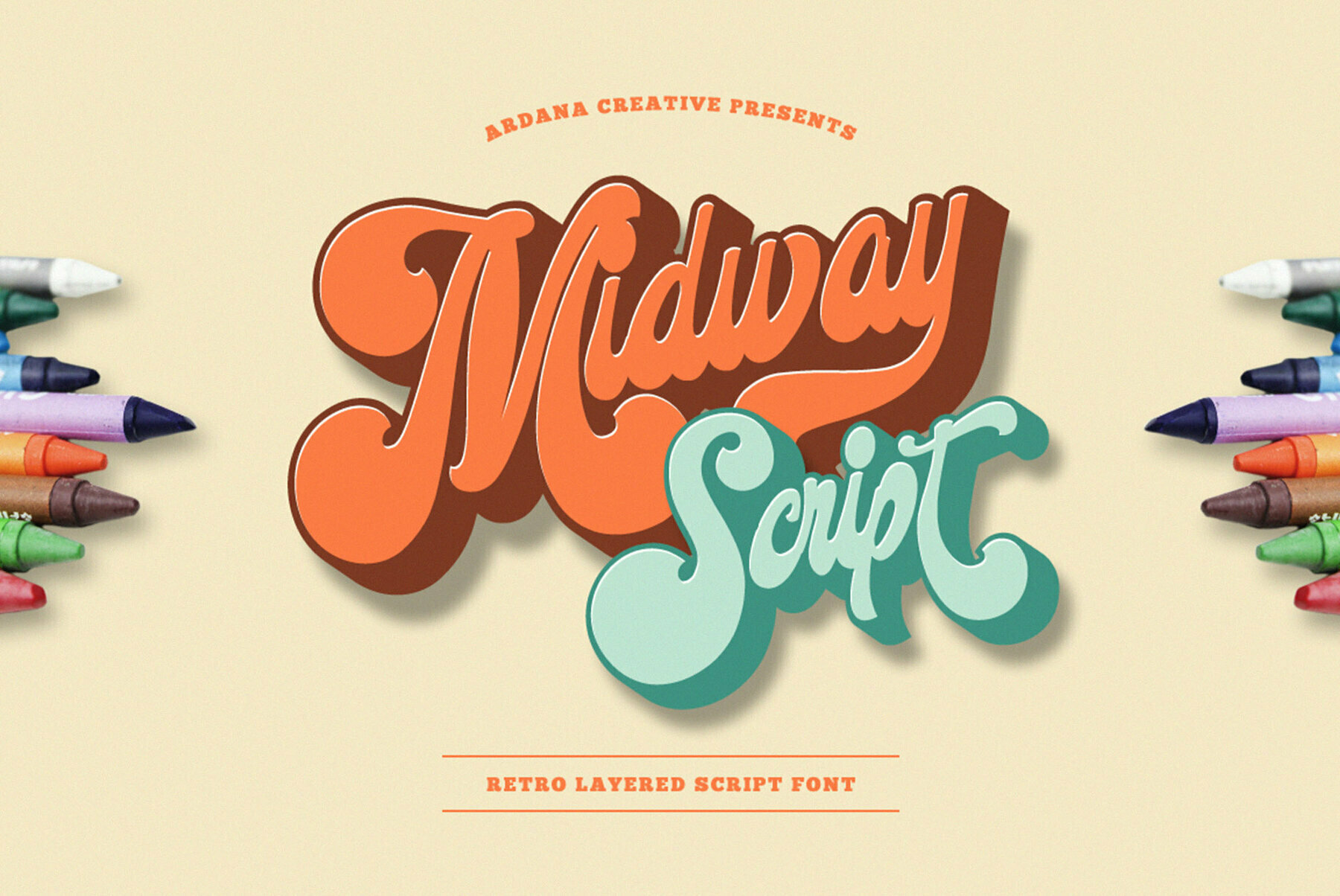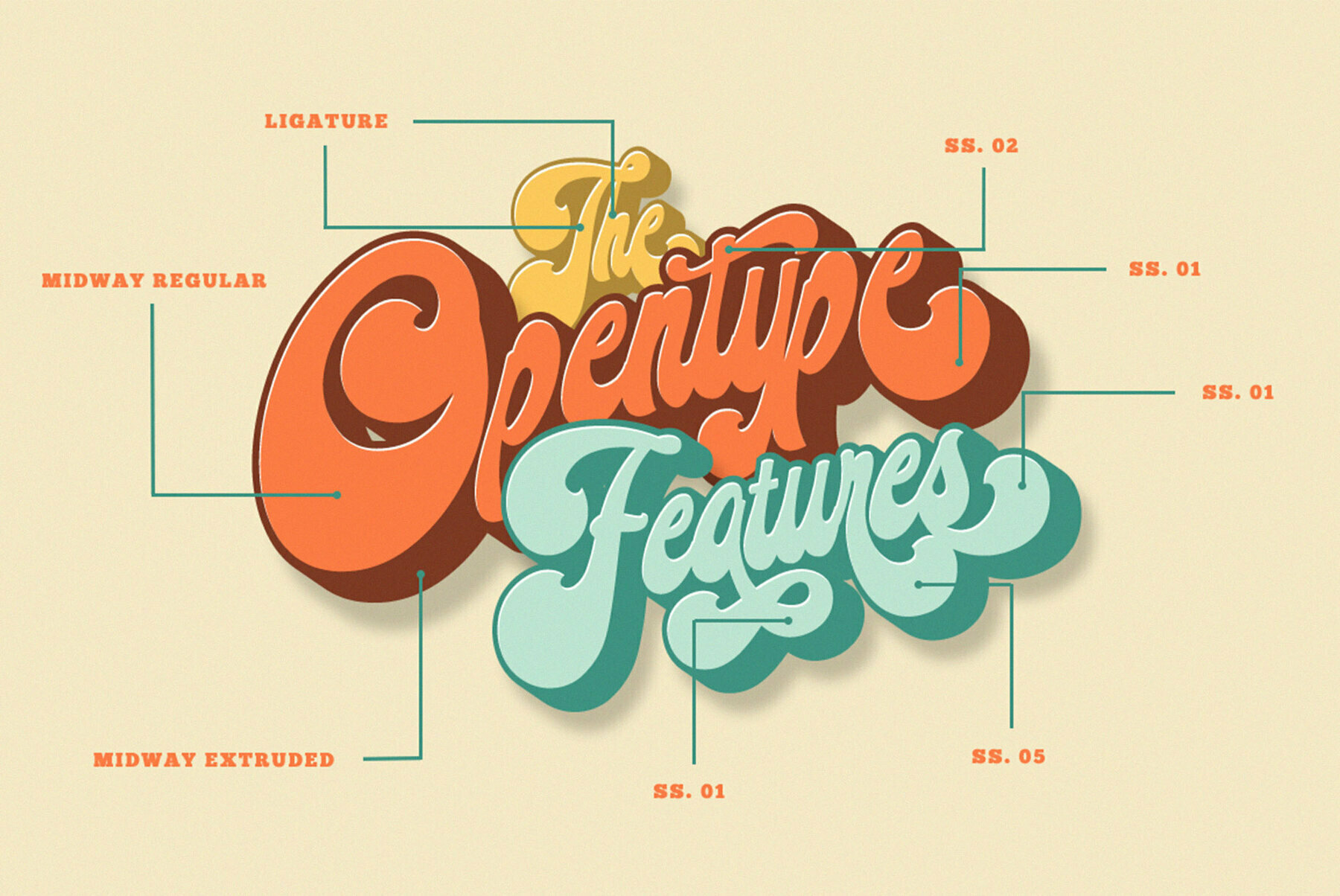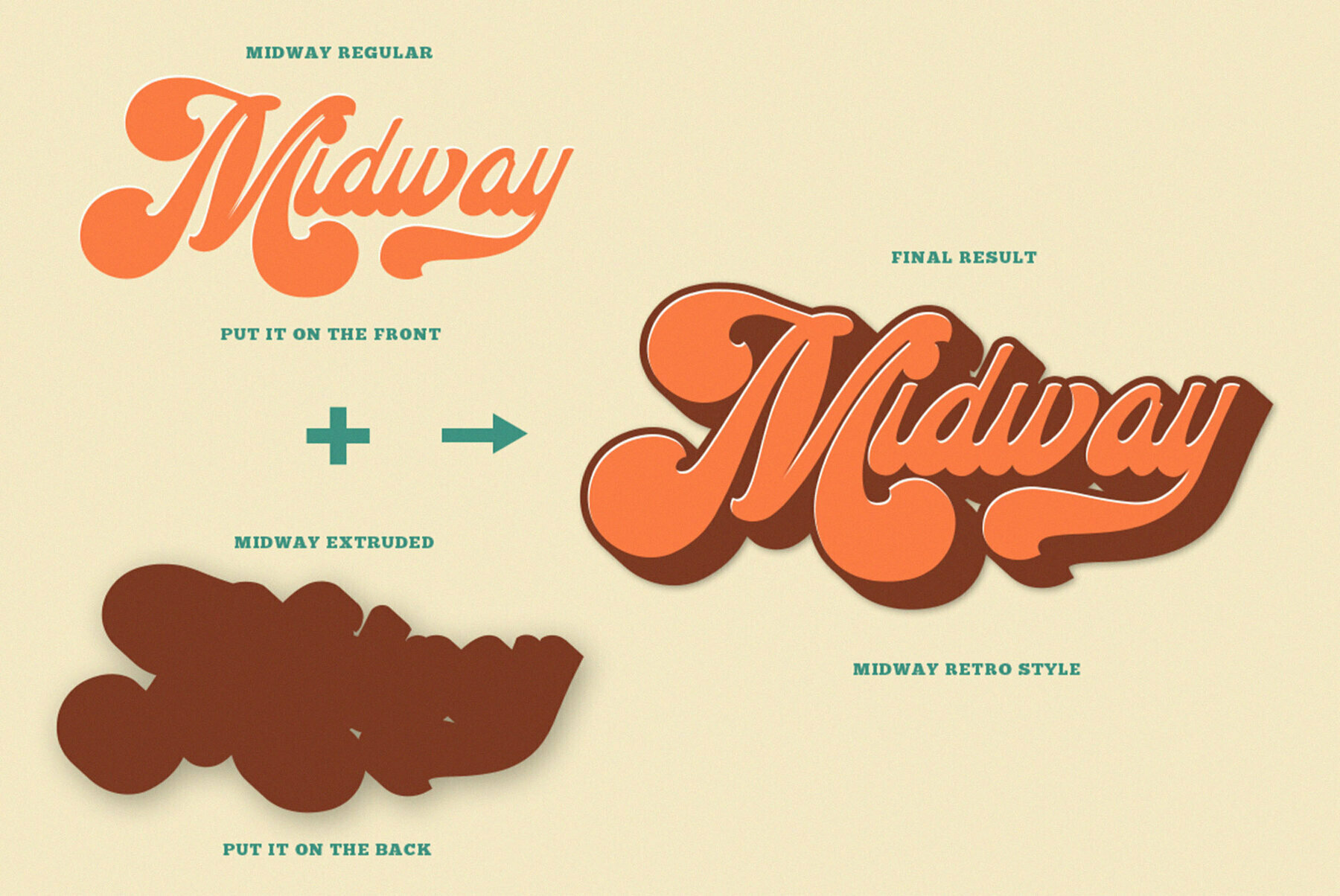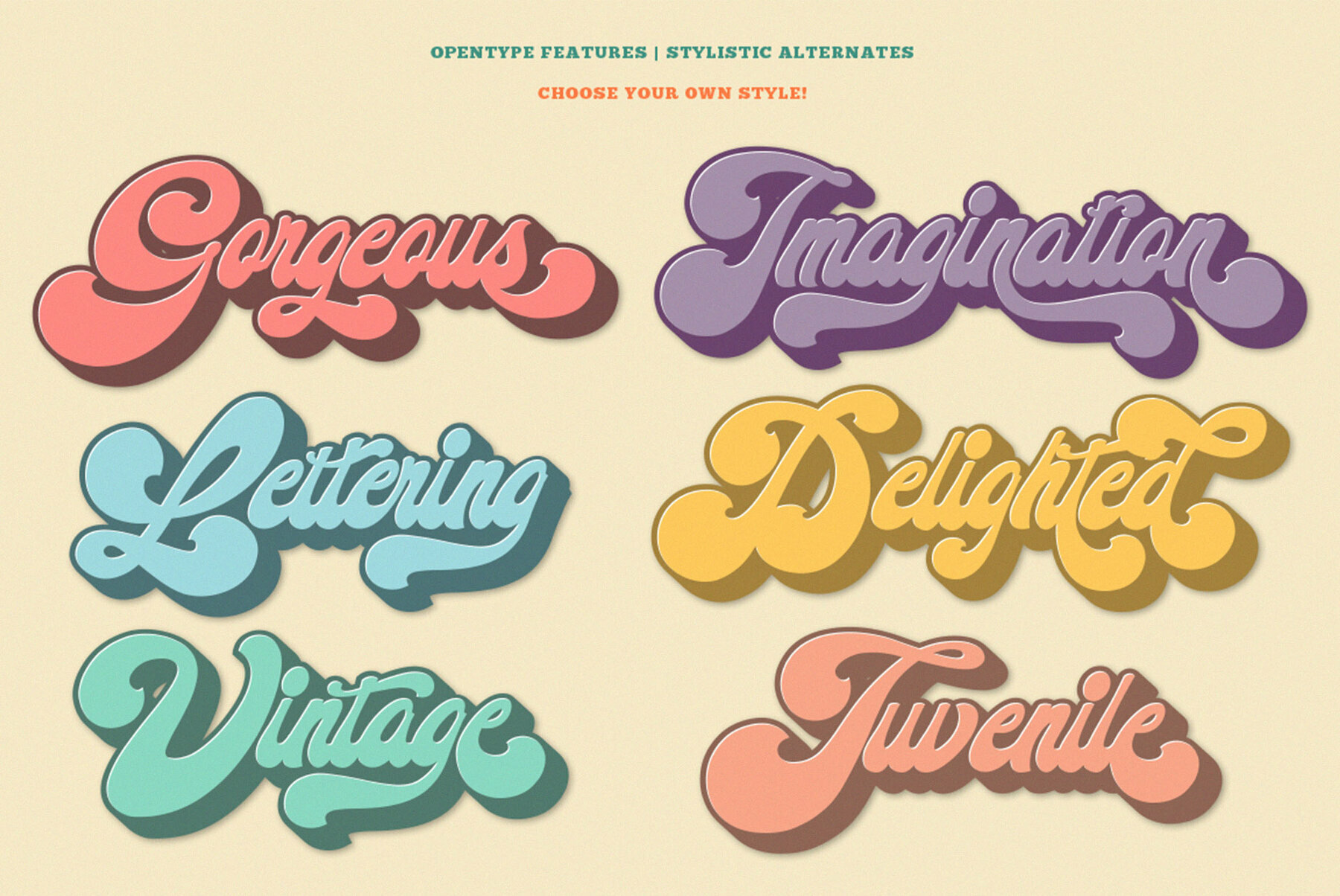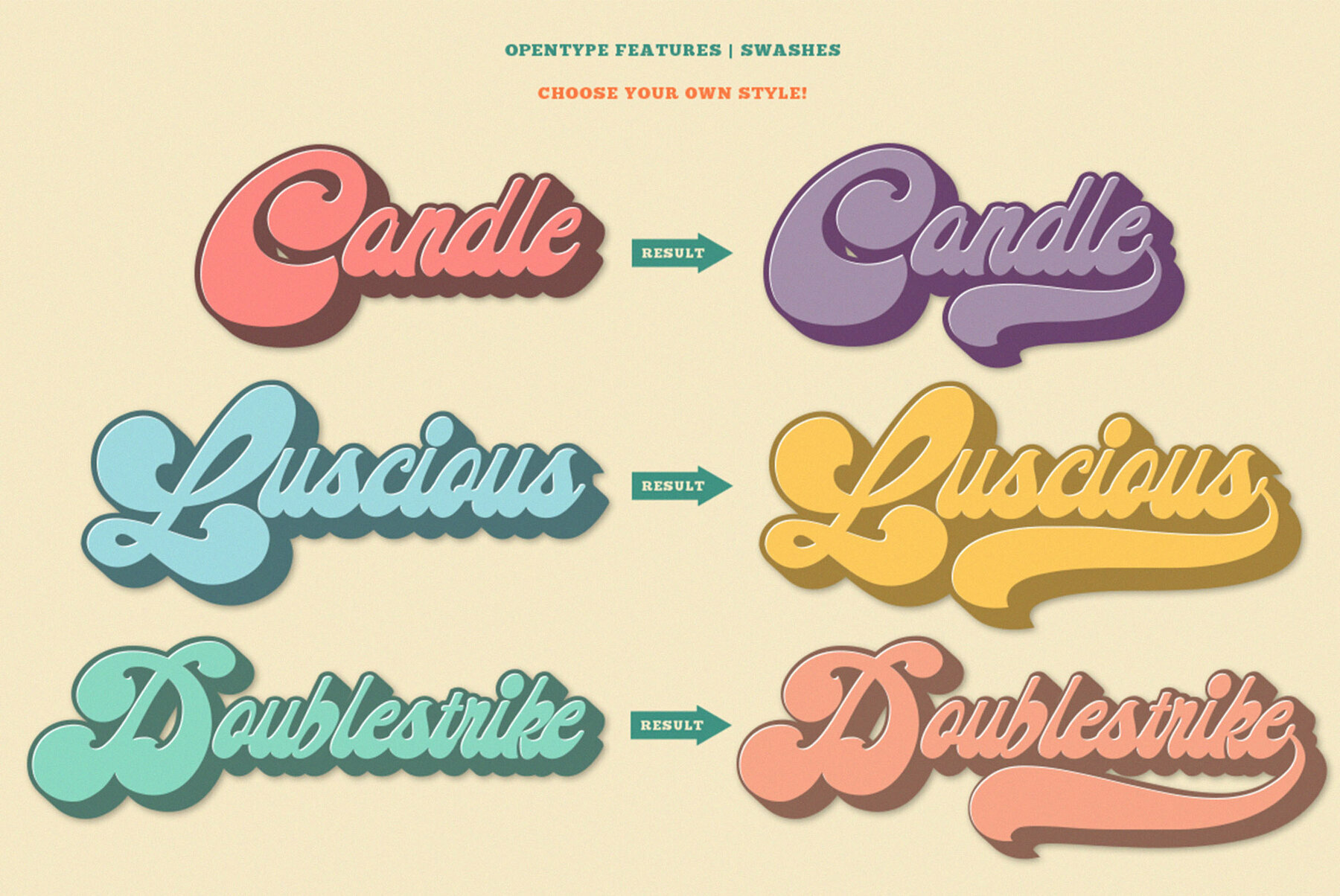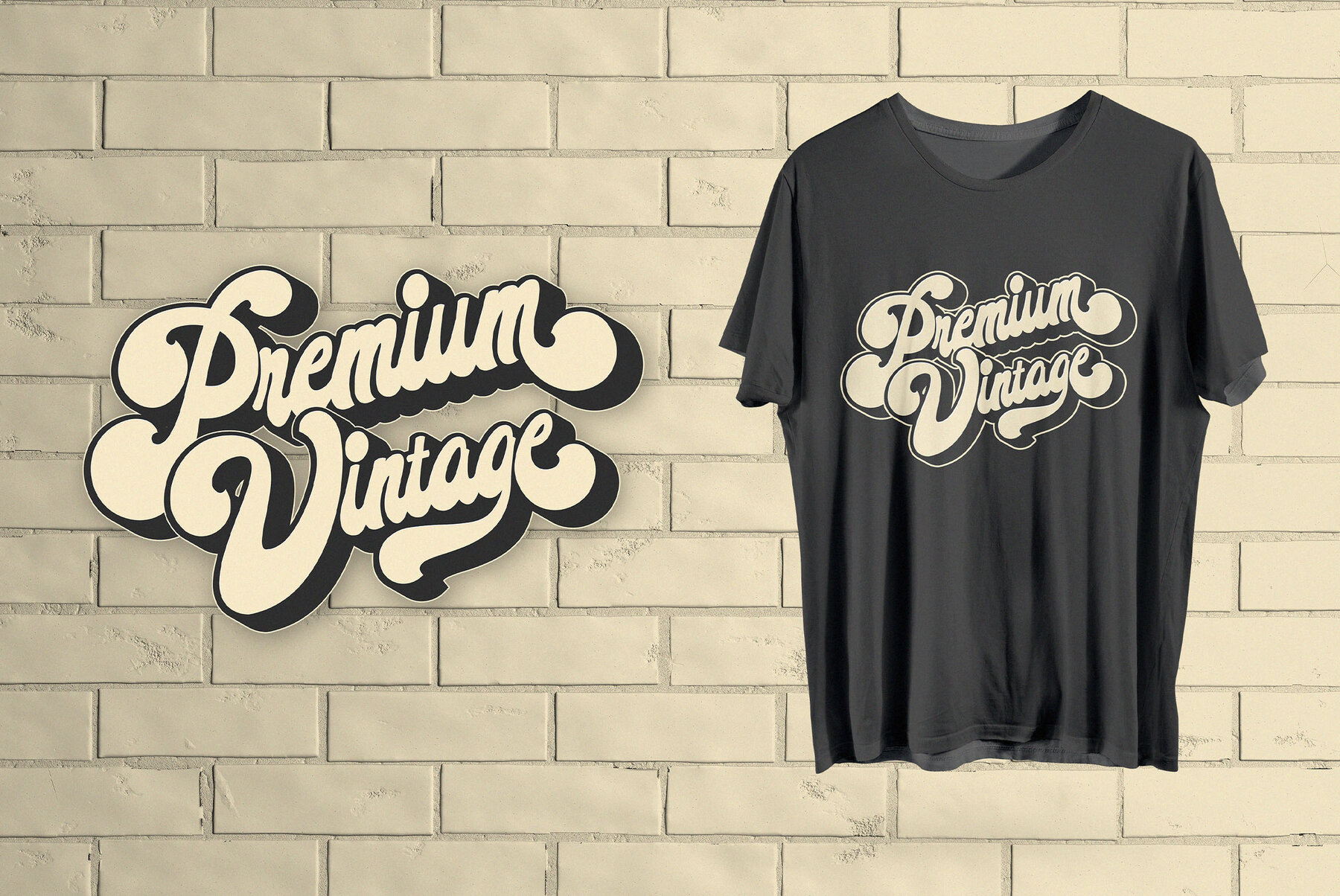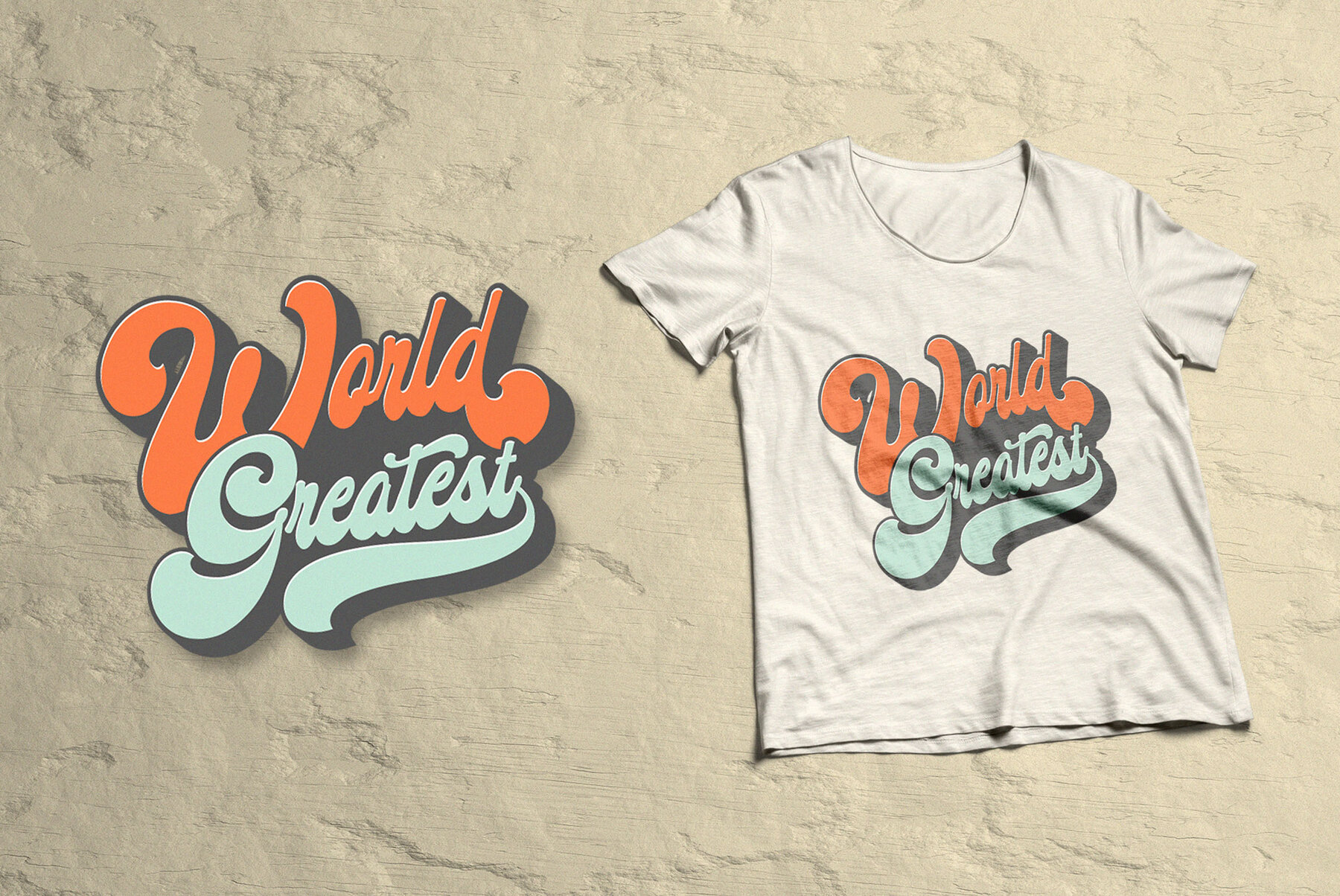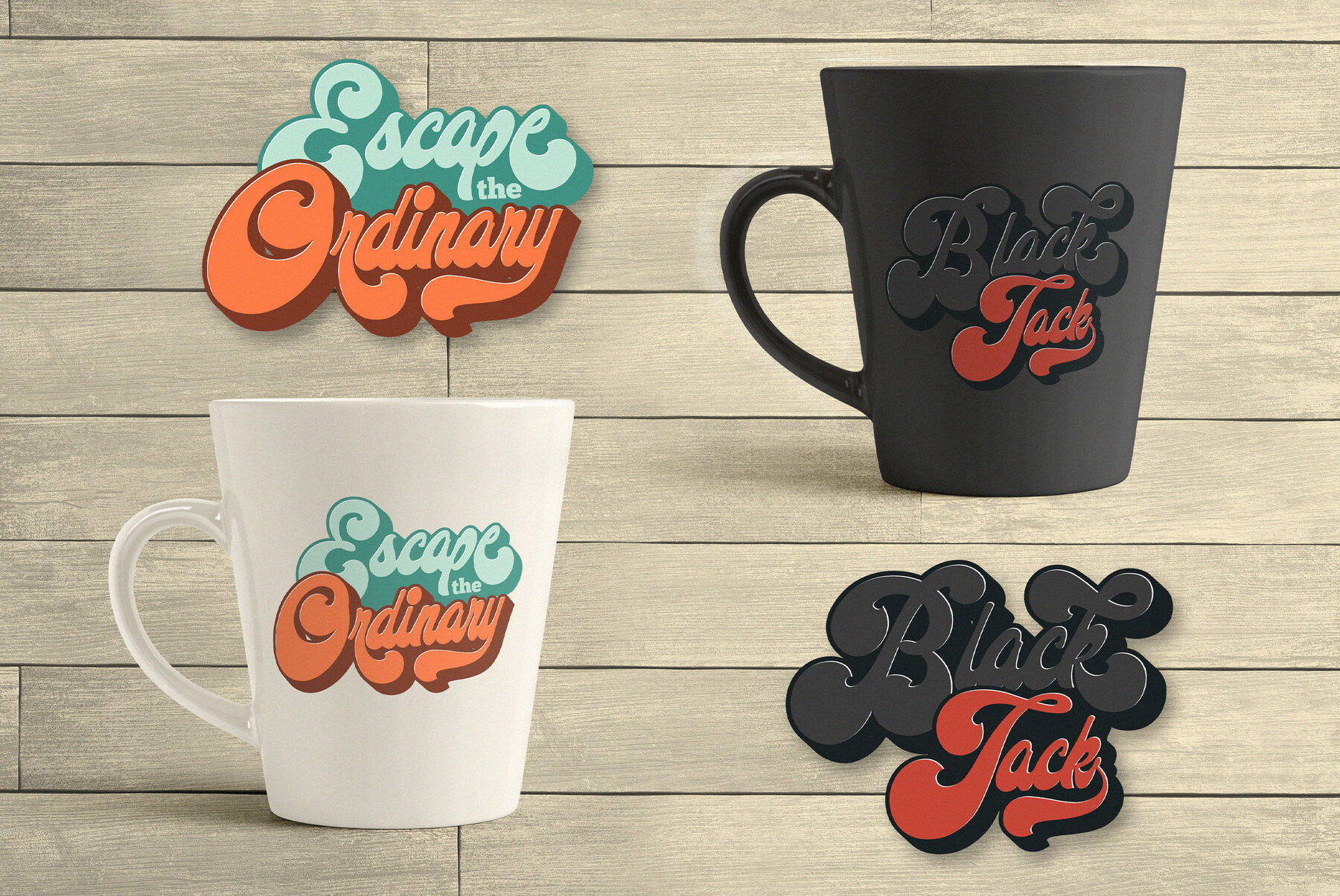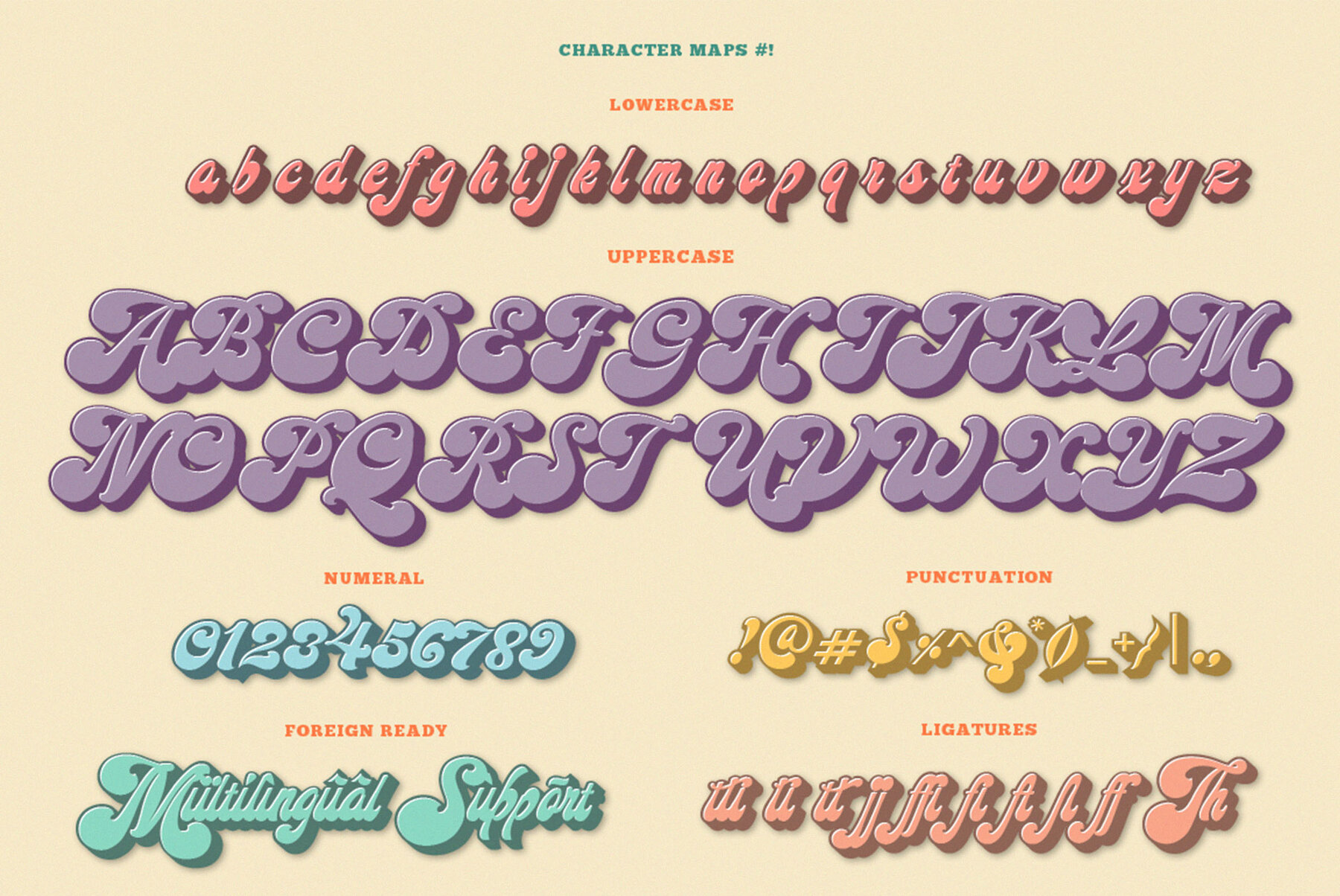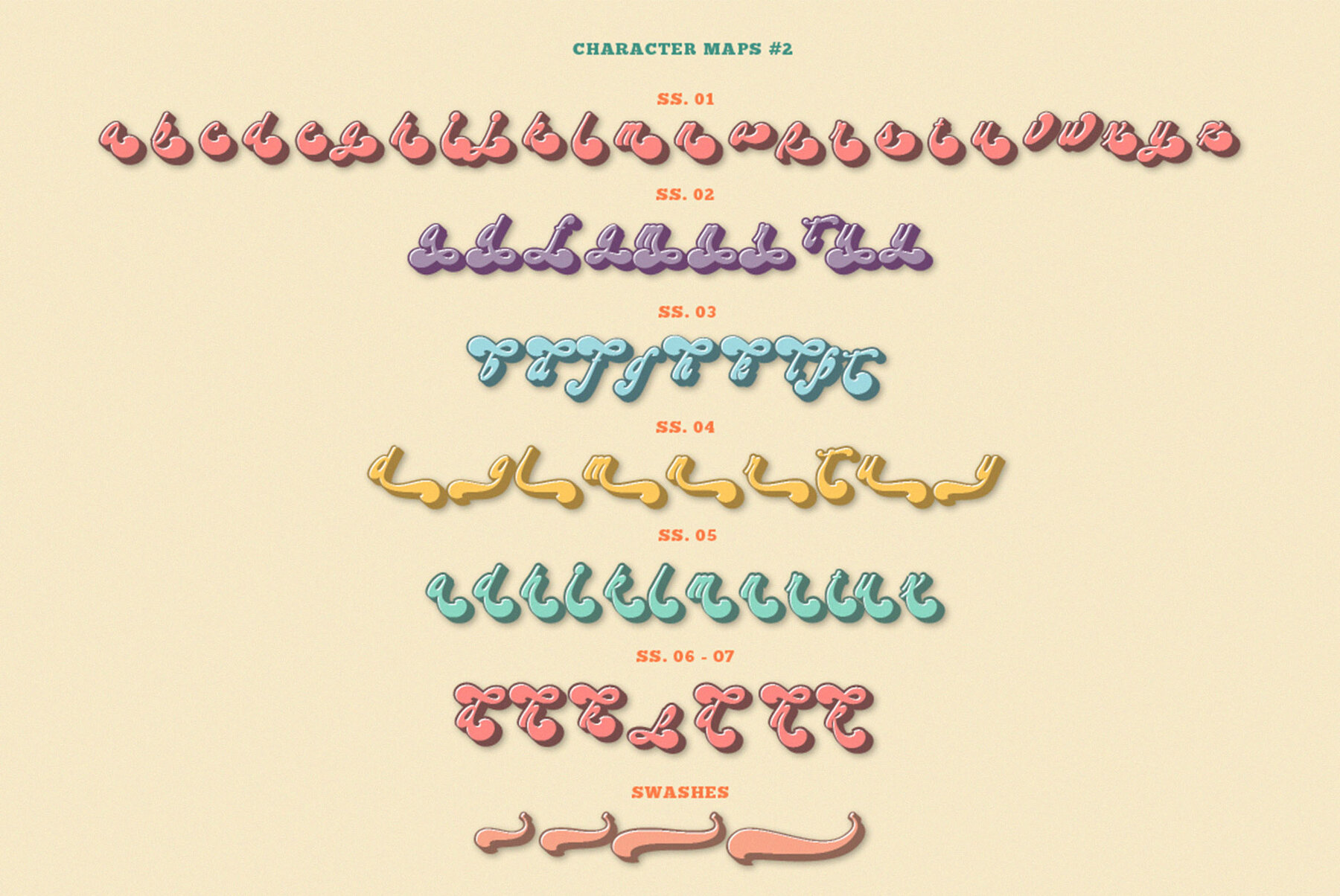
Midway Retro Font
Midway Retro embodies the bold and nostalgic appeal of classic scripts, making it an ideal choice for creating retro designs with ease. This typeface is rich with features that cater to graphic designers seeking to amplify their work with vintage flair. Perfectly suited for logos, t-shirts, vintage badges, branding, and packaging, Midway Retro delivers versatility and style. Leverage programs like Adobe Illustrator, InDesign, and CorelDraw to unlock the full potential of Midway Retro's stylistic alternates. Whether you're using Windows or Mac, access these features effortlessly through applications such as Character Map or Font Book.Midway Retro: A Bold Script Type for Vintage Designs